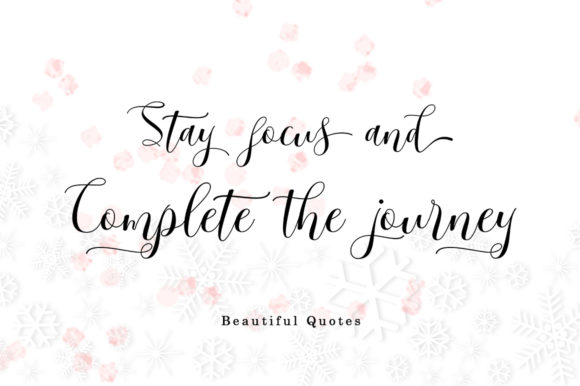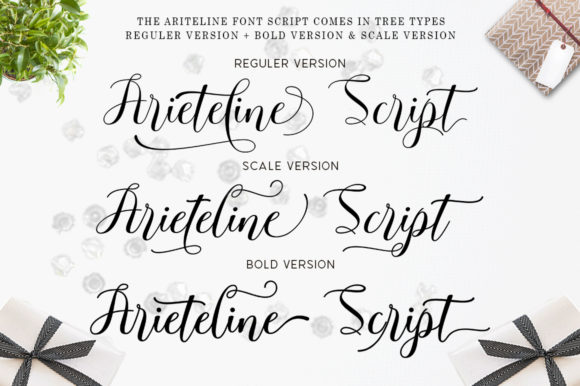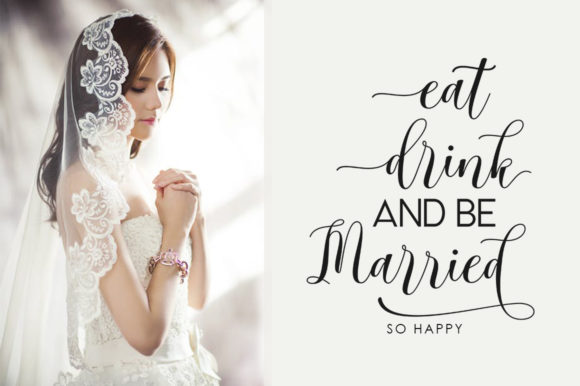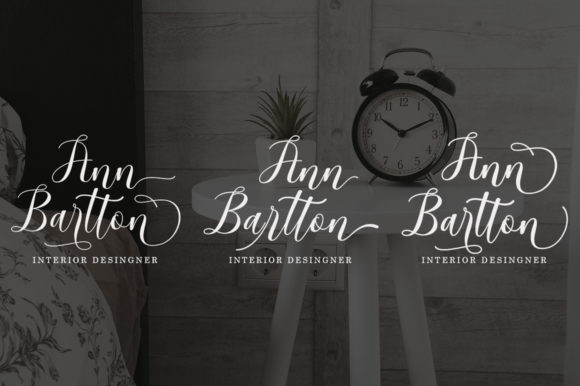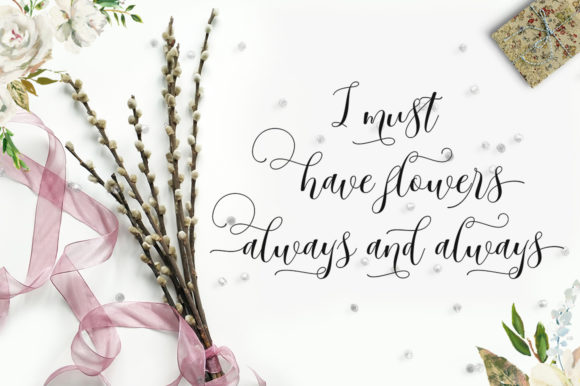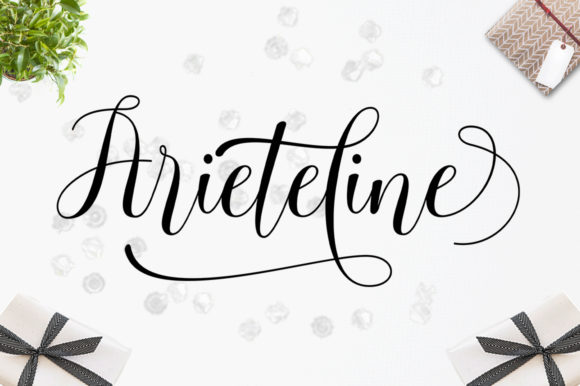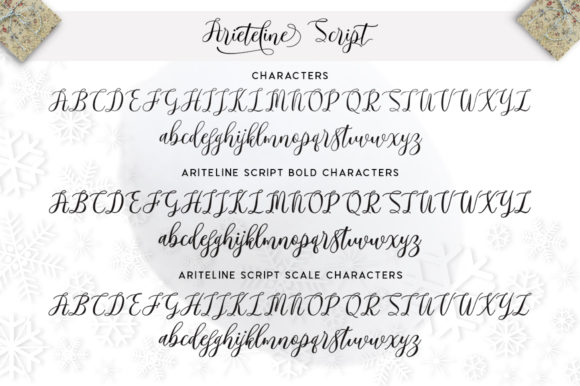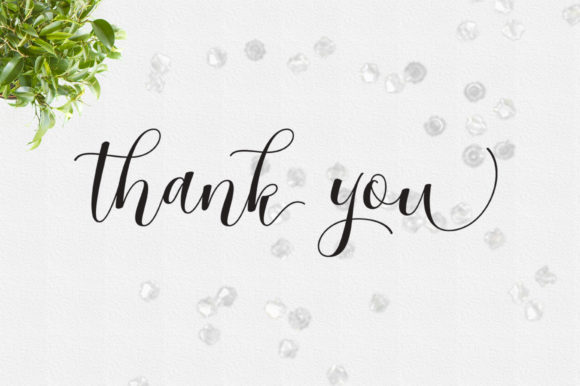
Ariteline Script Font
About Ariteline Script Font
The Ariteline script is a beautiful calligraphy design that comes in both a regular and an italic version. It will sweep you off your feet with its bold swashes!